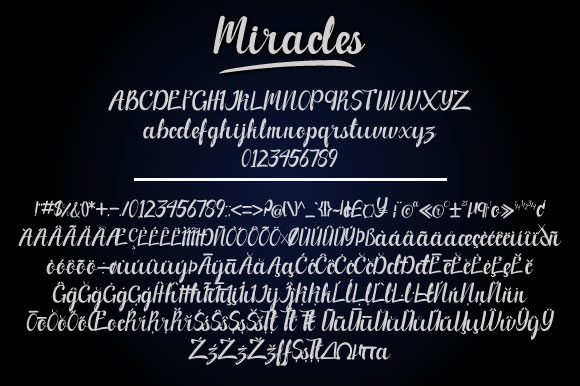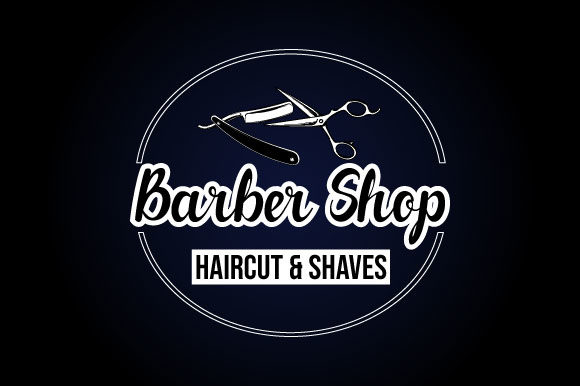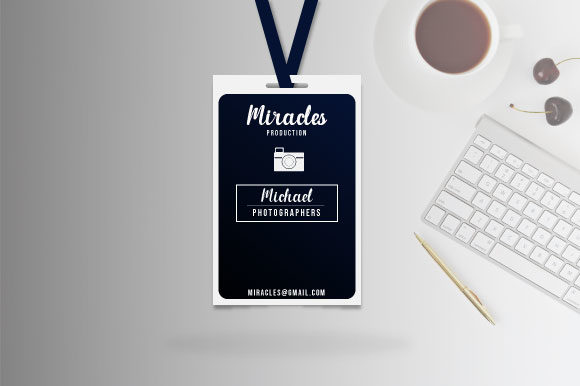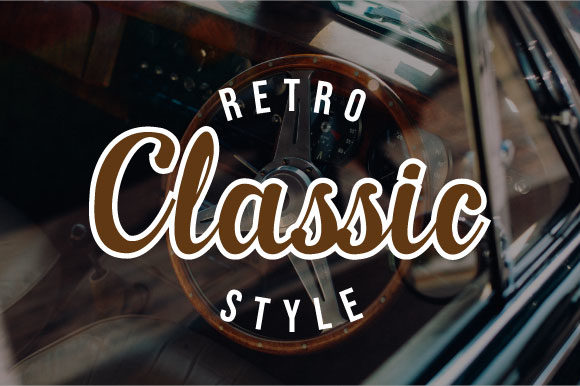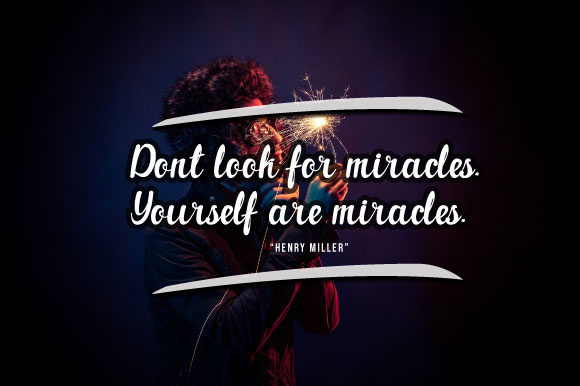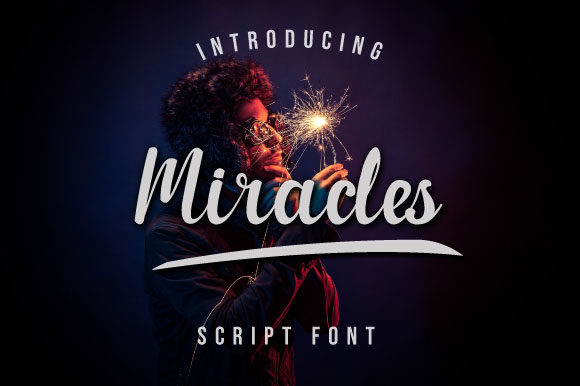
HomePersonal Use FreeMiracles Personal Use Free Miracles FacebookXPinterestWhatsApp 1 of 9 About Miracles Font Miracles is a beautiful and classic script with a timeless feel. Get inspired by its bold vibe. DOWNLOAD NOW People also explored Destilucy Font Candy Style Font Barel Font Maine Brownie Girly Font Anitta Beloved Font Ayana Monogram Font Pink Love Font Meritany Font 393 0 TagsChasing Miracles Font Previous articleHunting FontNext articleCinderella LEAVE A REPLY Cancel reply Comment: Please enter your comment! Name:* Please enter your name here Email:* You have entered an incorrect email address! Please enter your email address here Website: Save my name, email, and website in this browser for the next time I comment. Personal Use Free Grillin Personal Use Free Read more about this font Hatia Script Personal Use Free Read more about this font Cinderella Personal Use Free Read more about this font Nuku Nuku Personal Use Free Read more about this font BLOG Using Fonts in Digital Marketing: Tips to Strengthen Your Brand Identity In the realm of digital marketing, every visual element plays a crucial role in shaping a brand's identity, and fonts are no exception. The... How to Install and Use Fonts on Windows, macOS, and Web Projects Best Fonts for T-Shirt Design – Top 2025 Picks Where to Buy American Fonts Online in 2024